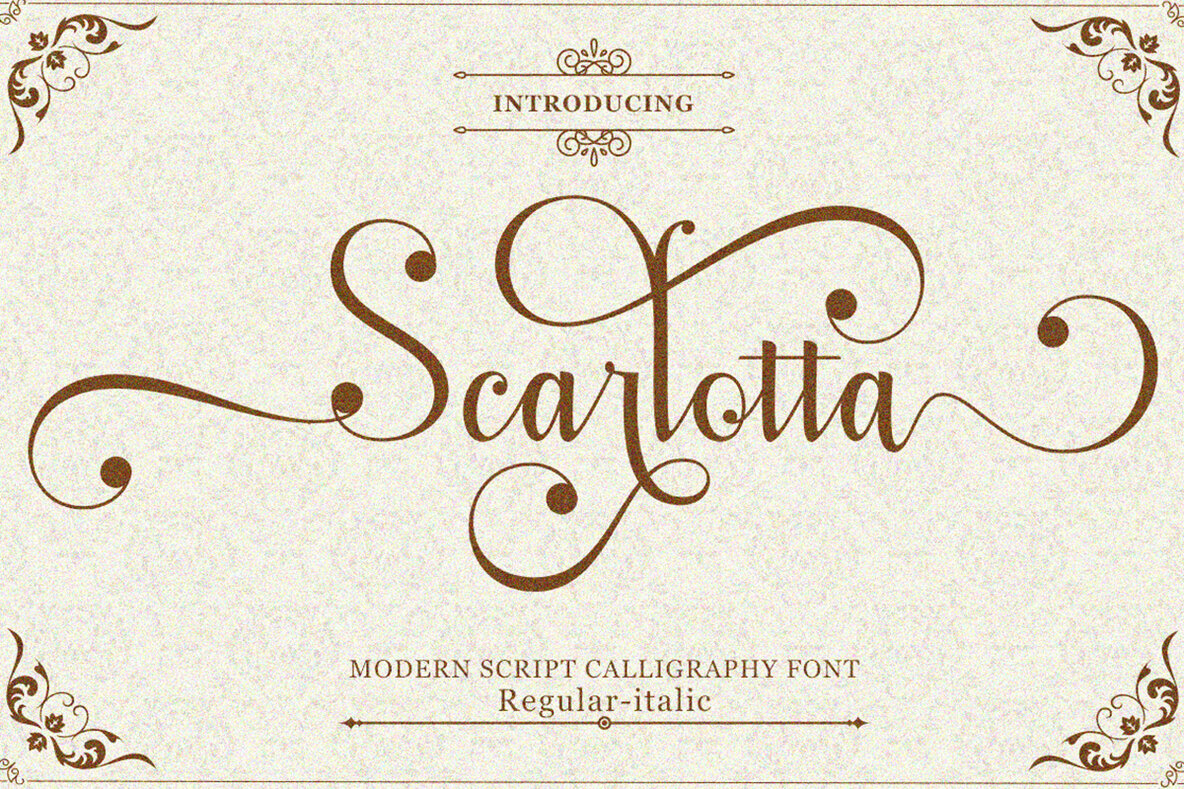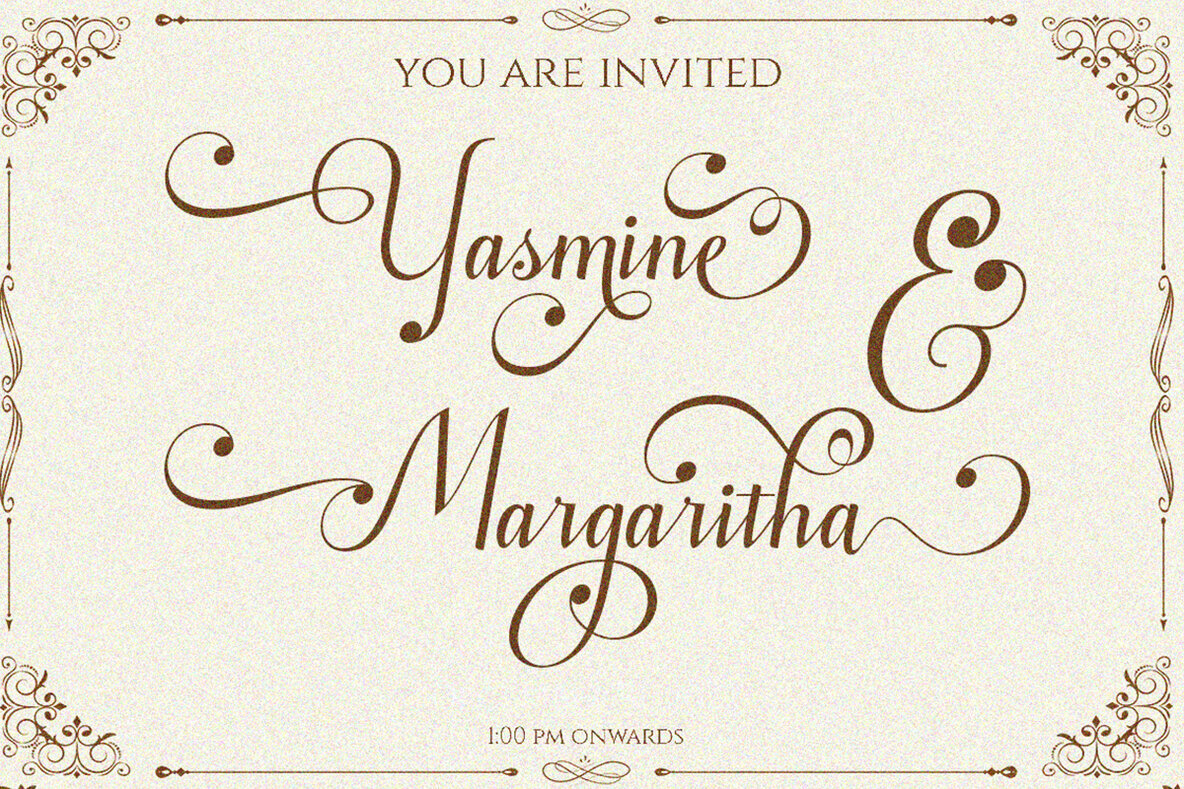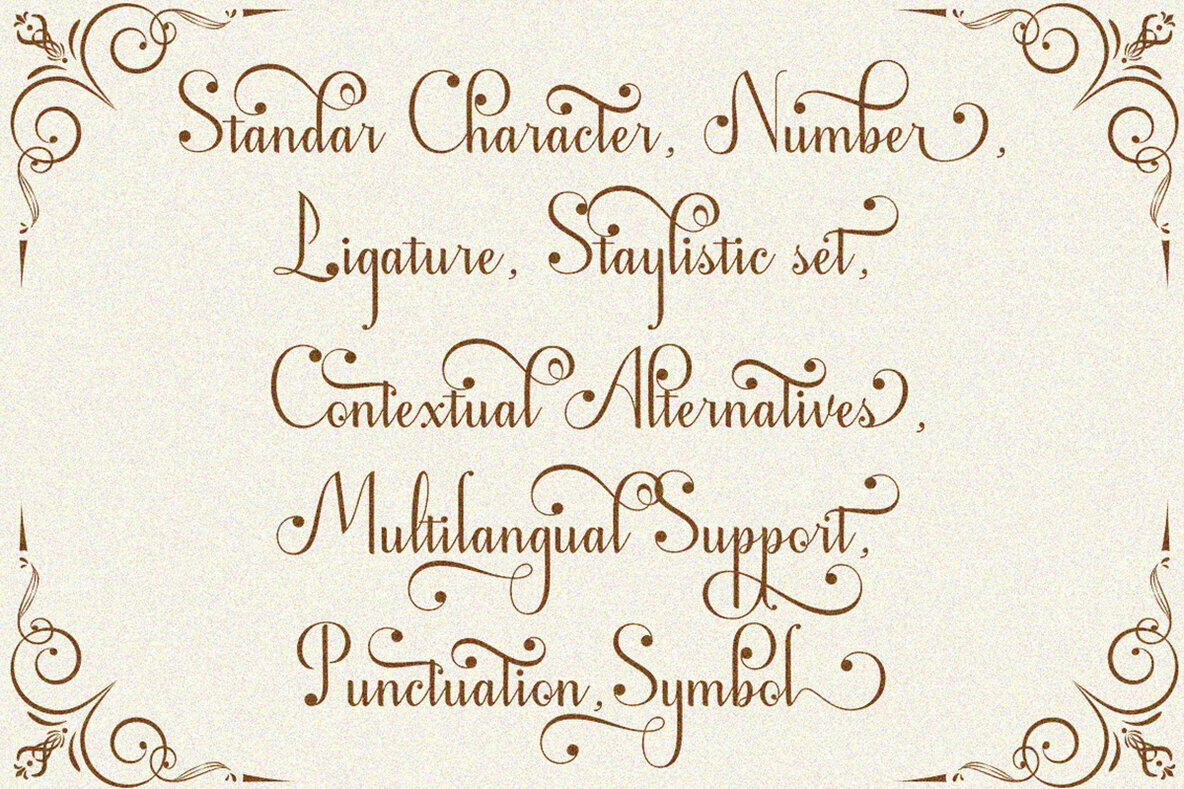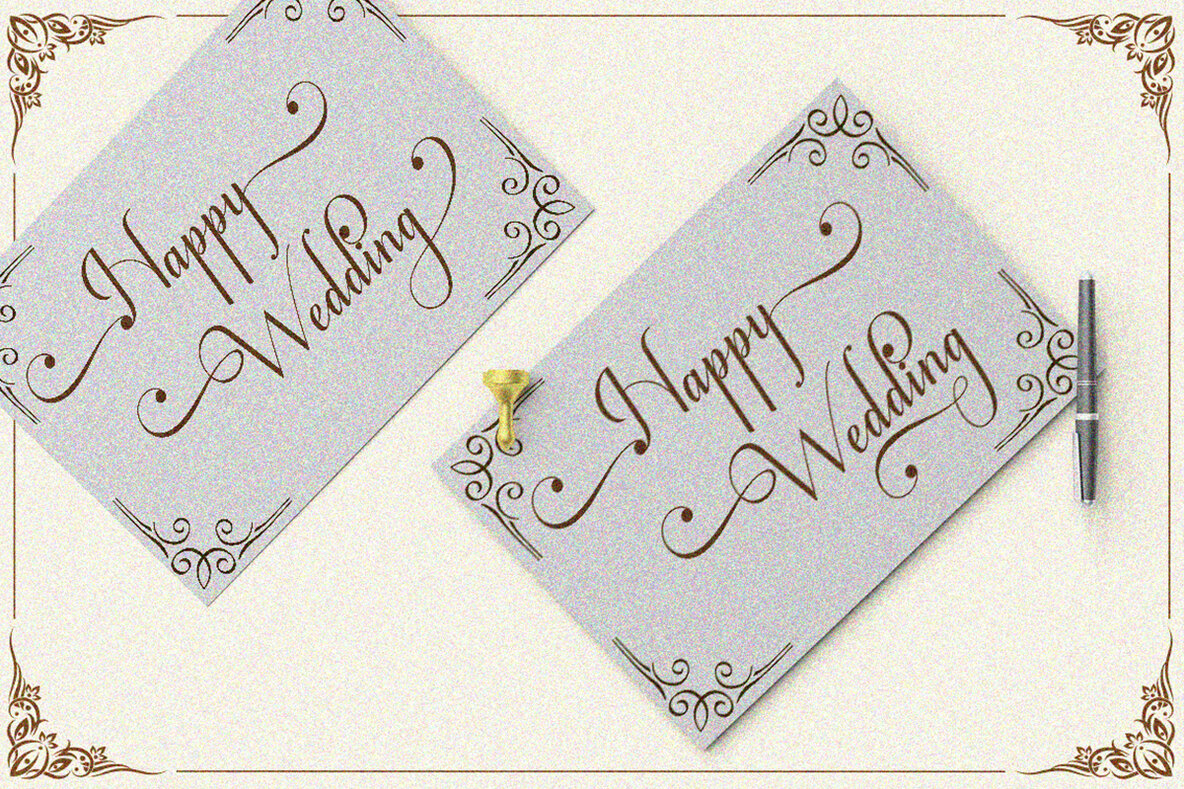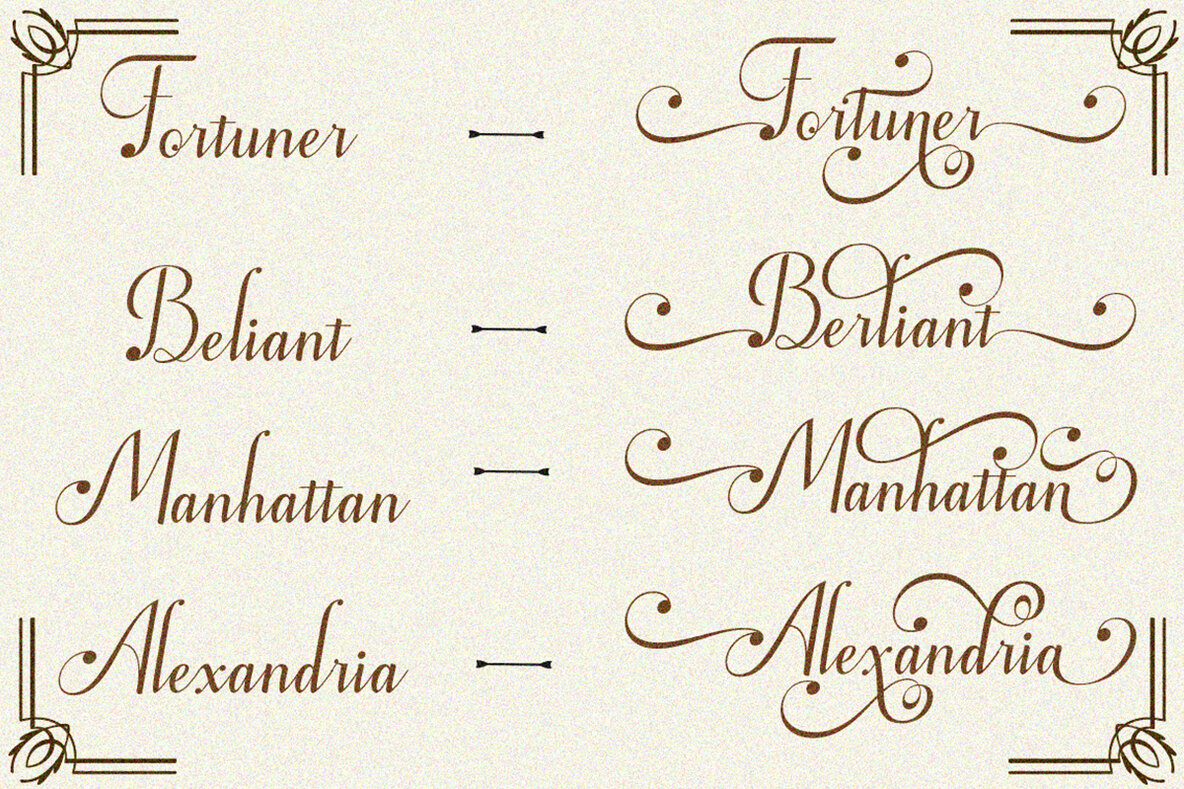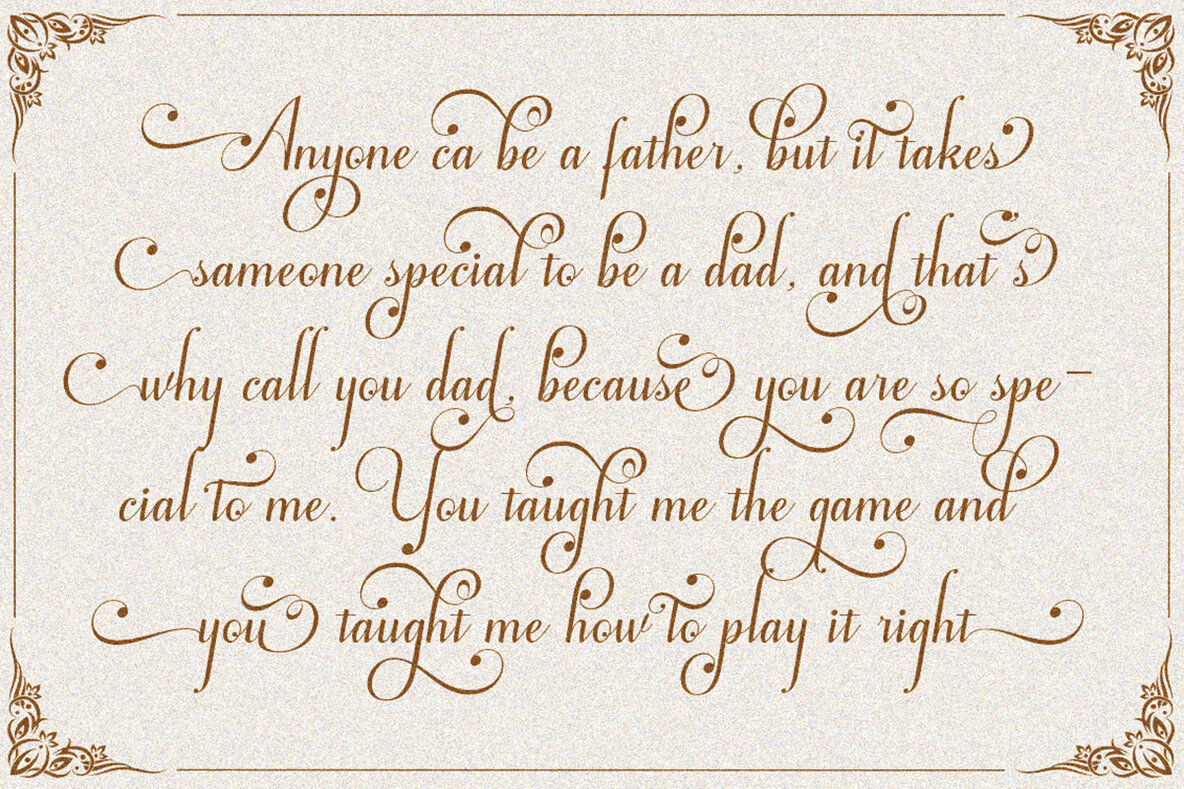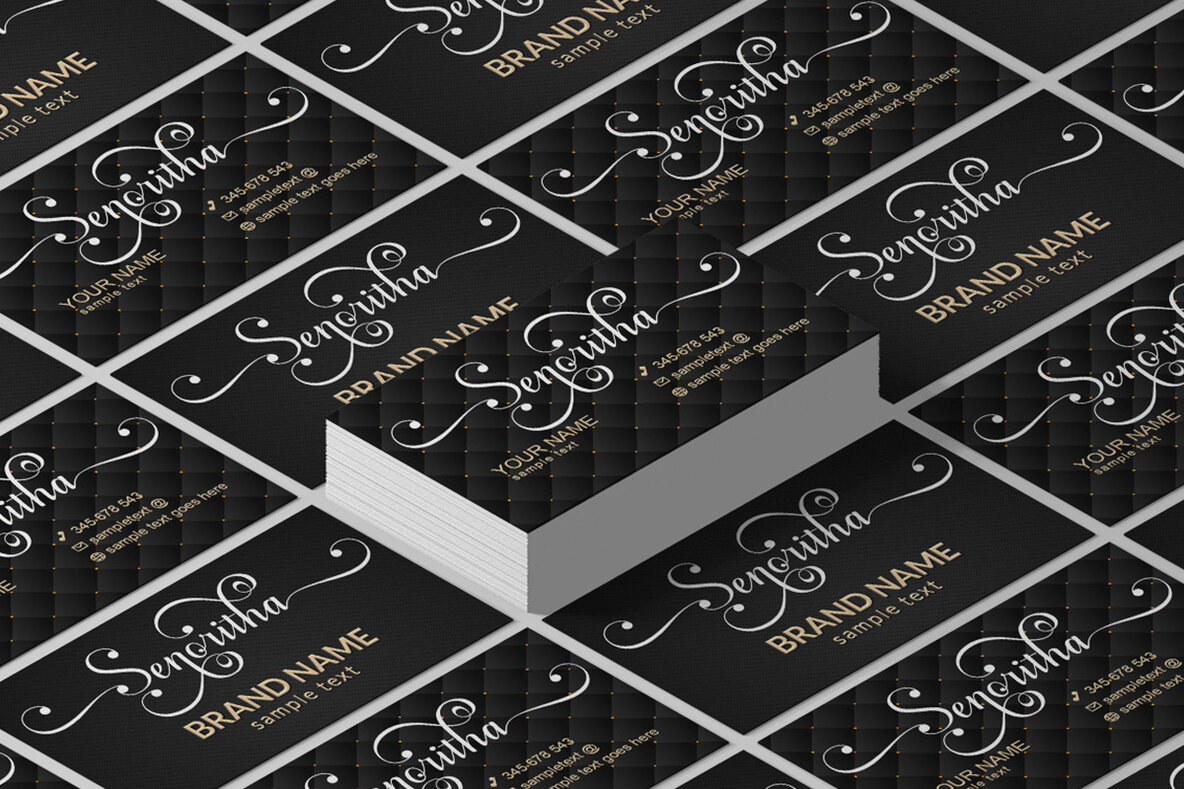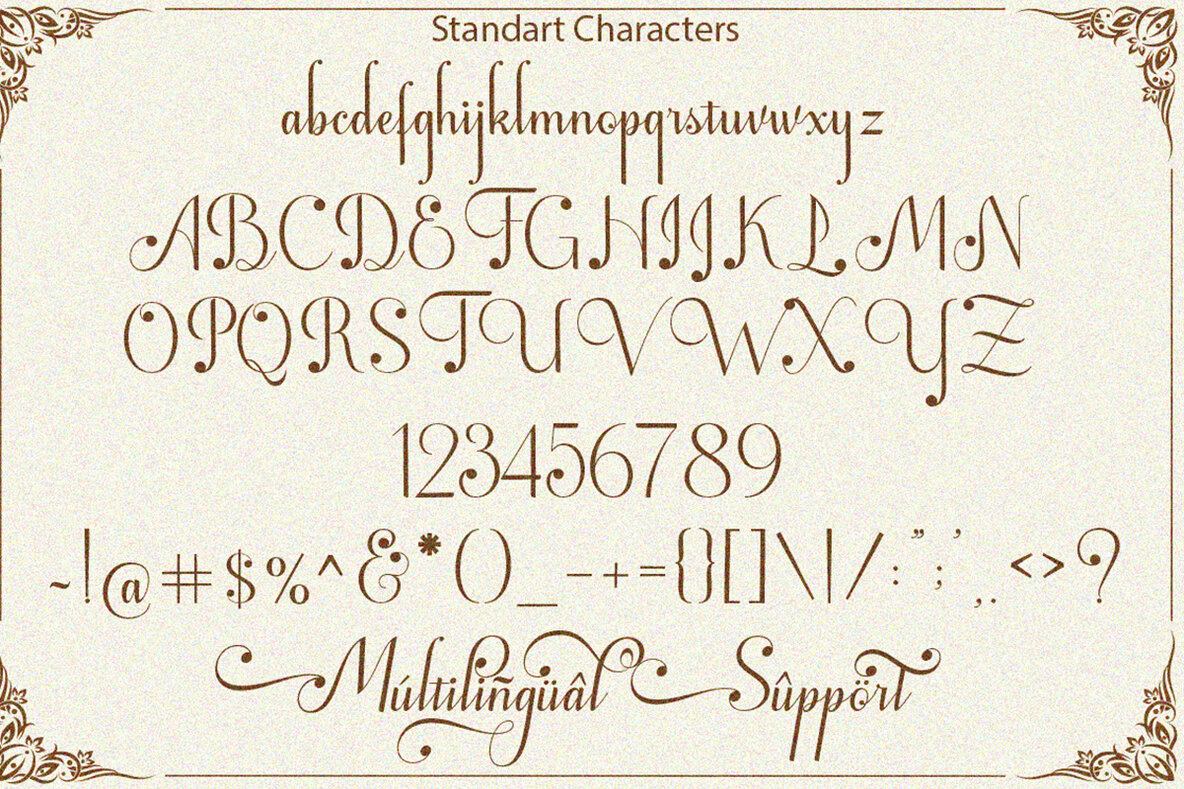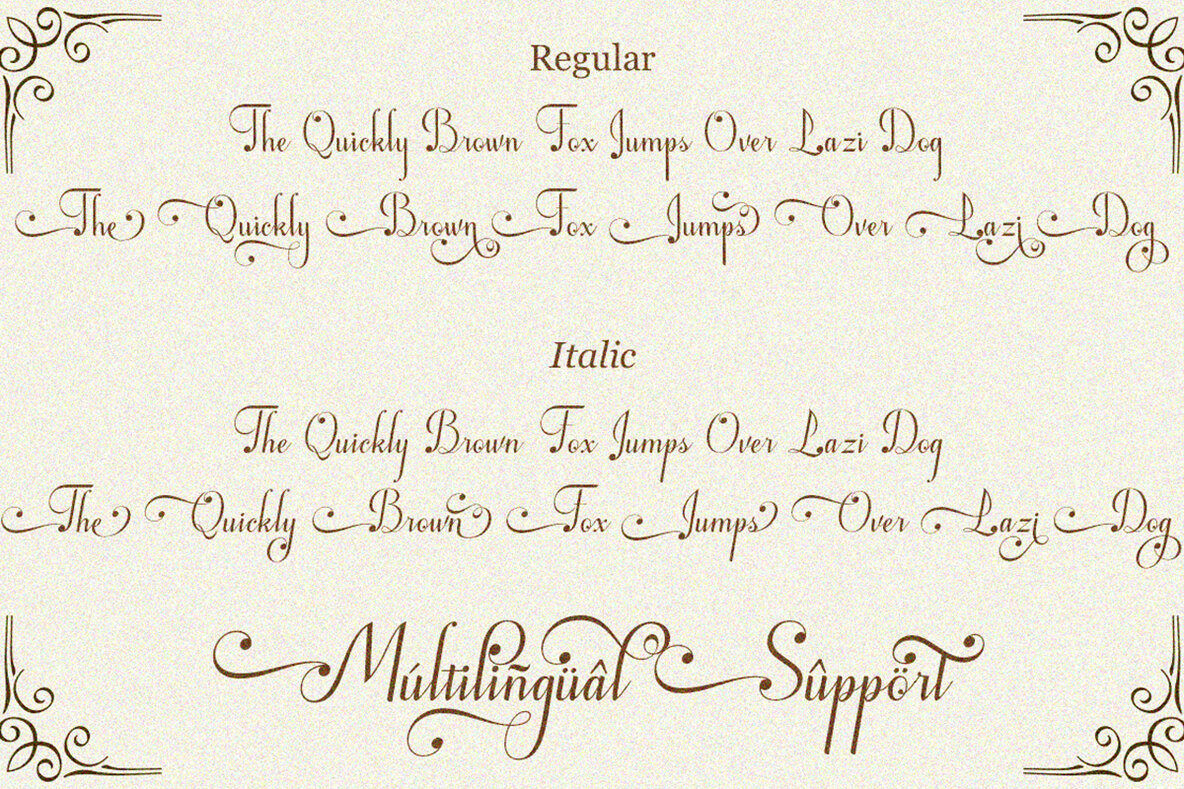
Scarlotta Font
Scarlotta is a sophisticated calligraphic script font that pairs the classic elegance of copper calligraphy with a contemporary hand-lettering style. Designed with an eye for elegance, Scarlotta is both subtle and clean, offering a feminine and glamorous appeal. Its readability and classic aesthetic make it an exquisite choice for formal applications, including invitations, logos, stationery, and more.
With an extensive set of over 489 glyphs and 270 alternate characters, Scarlotta provides versatile possibilities for multilingual projects. Its OpenType features, including alternative styles, binders, and character swashes, allow for customizable letter pairings to enhance your designs. This font also incorporates ornamental touches to elevate its graceful appearance.